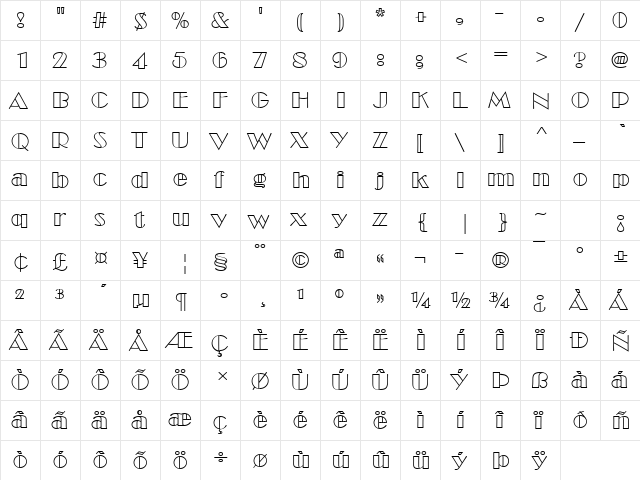
Broadway Becker Outline Regular
Design Context for Broadway Becker Outline Typeface
Broadway Becker Outline brings ornamental detail and strong personality to headlines and identities, where visual impact matters more than quiet functionality.
Font Pairing: Pair with a clean neutral sans-serif for body copy to let Broadway Becker Outline's character lead without overwhelming the composition.
Pro Tip: Use Broadway Becker Outline exclusively at display sizes — it was designed to be seen, not read at length. Let a neutral companion handle body copy.